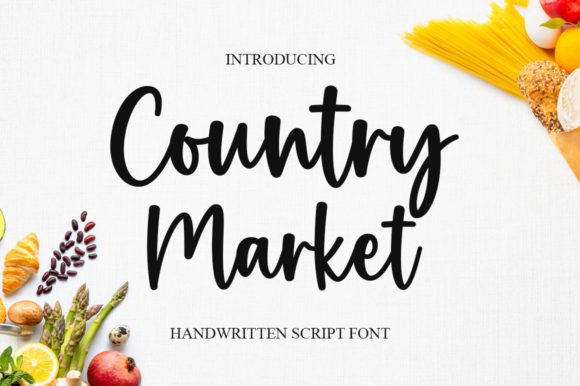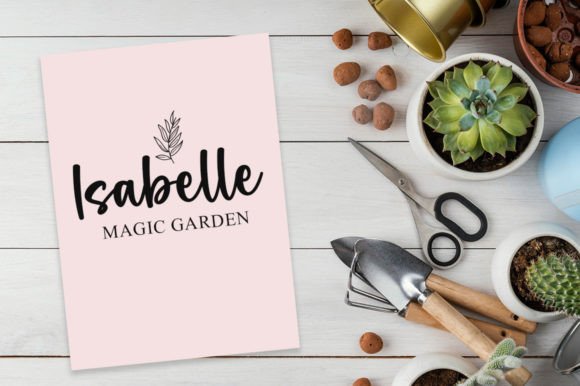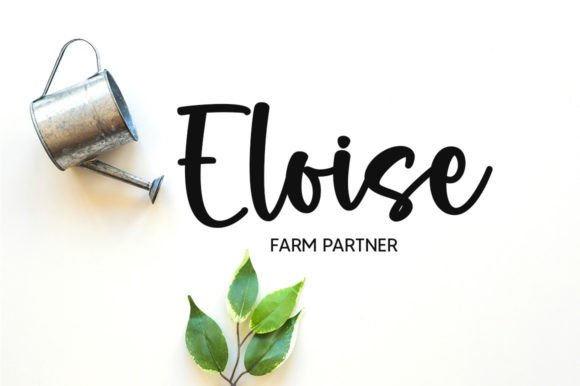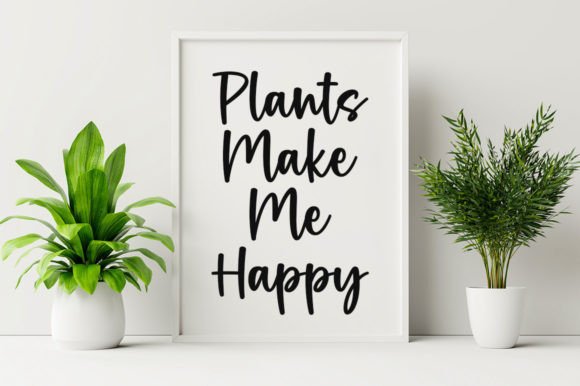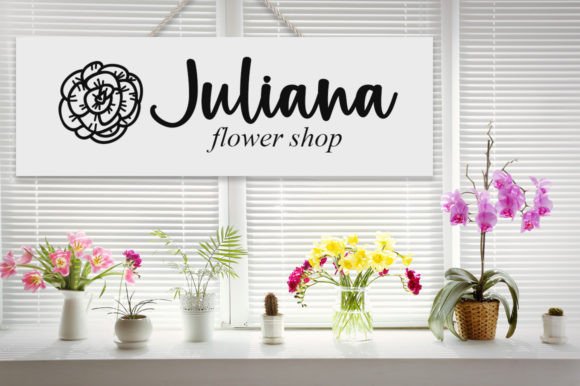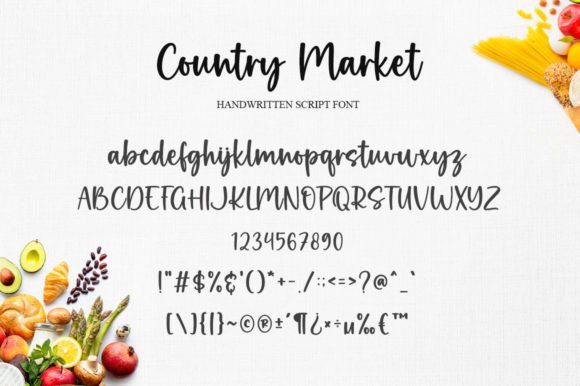
Country Market Font
About Country Market Font
“Country Market” is a delicate, elegant, and flowing handwritten font designed to bring beauty and balance to a variety of design projects. The font’s well-crafted characters make it a perfect choice for applications such as wedding invitations, thank-you cards, quotes, greeting cards, logos, and business cards, where a handwritten touch adds a personalized and human element.
The flowing script of “Country Market” contributes to its overall aesthetic, creating a sense of delicacy and elegance. Whether you’re working on formal wedding invitations or creating a friendly logo, this font adapts seamlessly to different design contexts.
Its versatility makes it suitable for a wide range of projects that require a handwritten touch. The font adds a warm and approachable feel, making it an excellent choice for conveying messages with a personal and authentic vibe.
In summary, “Country Market” is more than just a font; it’s a design asset that brings delicacy and elegance to your creative endeavors. Whether used for formal occasions like wedding invitations or casual applications like greeting cards, this handwritten font adds a touch of charm that enhances the overall visual appeal of your designs.